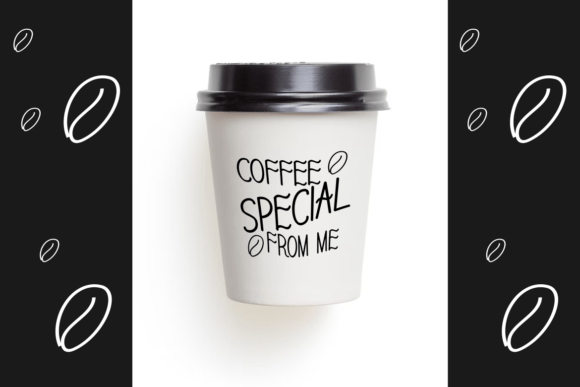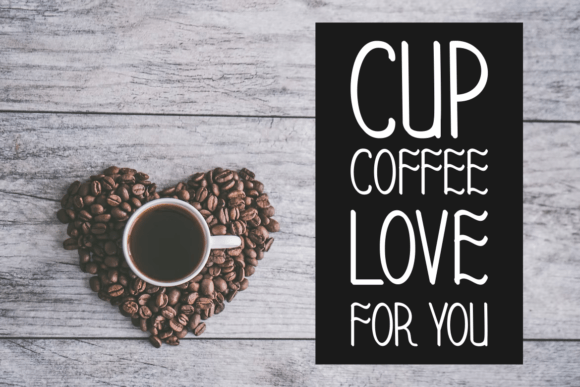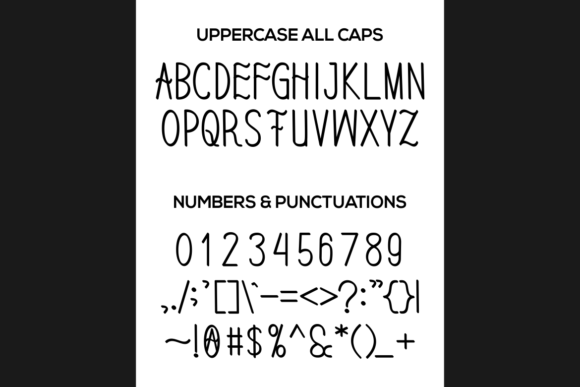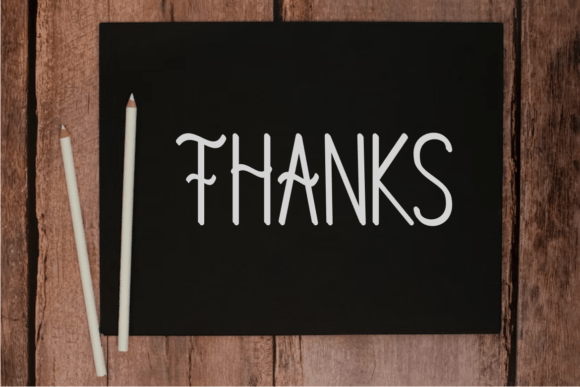
Introduction to Qatraz Font
Qatraz is a modern and authentic handwritten font suitable for any branding project like logos, t-shirt printing, esports, and many more.
It will look outstanding in a wide range of contexts .
Key Features of Qatraz Font